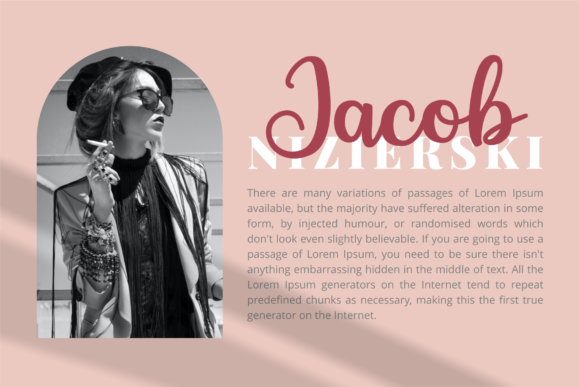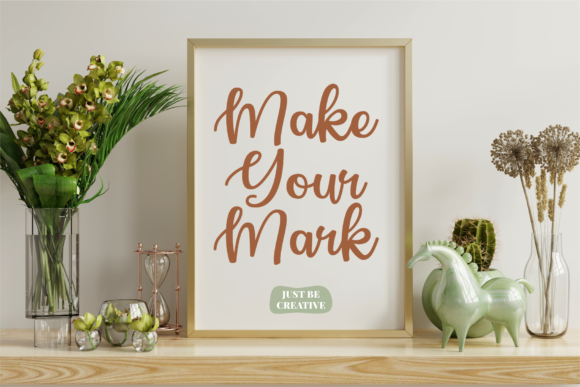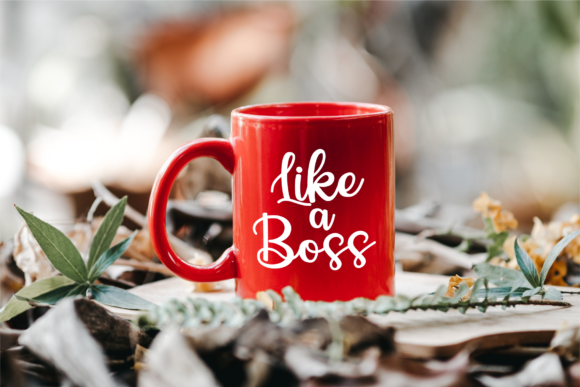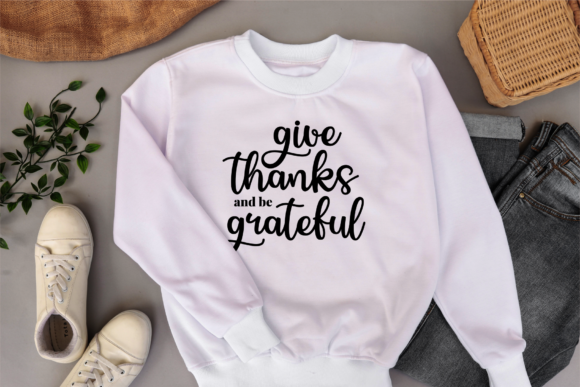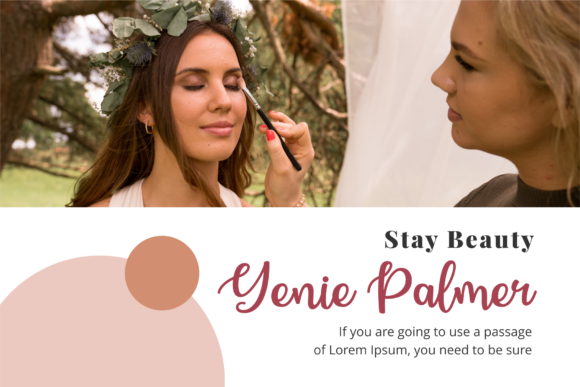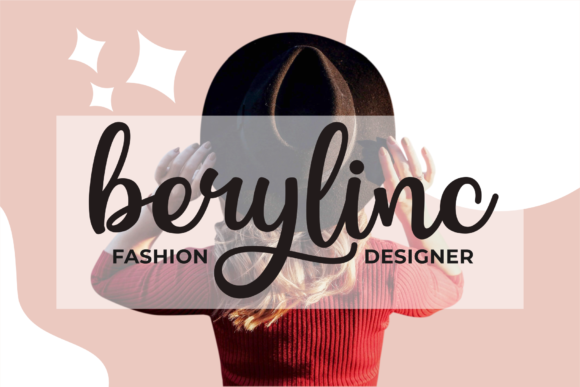
Glamoura Font: Elevate Your Designs with Elegance and Class
In the world of typography, fonts play a crucial role in conveying the tone and aesthetic of a design. For those seeking a lovely and delicate script font that exudes elegance and class, Glamoura Font is an exceptional choice. Crafted with precision and attention to detail, Glamoura is specifically designed for individuals who require a beautiful and refreshing look to enhance their designs.
The Essence of Glamoura Font
Glamoura Font is a stunning script font that embodies sophistication and refinement. Its delicate strokes and curves create a sense of fluidity, making it perfect for designs that demand a touch of luxury and poise. Whether you’re working on a branding project, wedding invitation, or social media graphics, Glamoura Font is sure to elevate your work to new heights.
Key Features of Glamoura Font
- Delicate and Elegant: Glamoura Font boasts a delicate and elegant appearance, making it ideal for designs that require a sophisticated touch.
- Script Font: As a script font, Glamoura offers a flowing and connected style that adds a touch of luxury to any design.
- Refreshing Look: With its unique and refreshing appearance, Glamoura Font is perfect for designers seeking to create a lasting impression.
- High-Quality: Glamoura Font is crafted with precision, ensuring a high-quality appearance that will enhance your designs.
Who Can Benefit from Glamoura Font?
Glamoura Font is an excellent choice for a wide range of designers and crafters, including:
- Graphic Designers: Those working on branding projects, logos, and marketing materials will appreciate Glamoura’s elegant and sophisticated appearance.
- Wedding Planners: Glamoura Font is perfect for creating beautiful wedding invitations, stationery, and other wedding-related designs.
- Social Media Influencers: For social media enthusiasts, Glamoura Font offers a stylish and refreshing way to enhance their online presence.
- Crafters: DIY enthusiasts and crafters will love using Glamoura Font for their handmade projects, such as card making, scrapbooking, and more.
Tips for Using Glamoura Font Effectively
To make the most of Glamoura Font, consider the following tips:
- Pair with Neutral Colors: Combine Glamoura Font with neutral colors to create a clean and elegant look.
- Use for Headings: Glamoura Font is perfect for headings and titles, adding a touch of sophistication to your designs.
- Experiment with Sizes: Play with different font sizes to create visual interest and emphasize key elements in your design.
In conclusion, Glamoura Font is a beautiful and elegant script font that offers a refreshing look for designers and crafters. Its delicate strokes, curves, and sophisticated appearance make it perfect for a wide range of design projects. Whether you’re a graphic designer, wedding planner, or social media influencer, Glamoura Font is sure to elevate your work and leave a lasting impression.